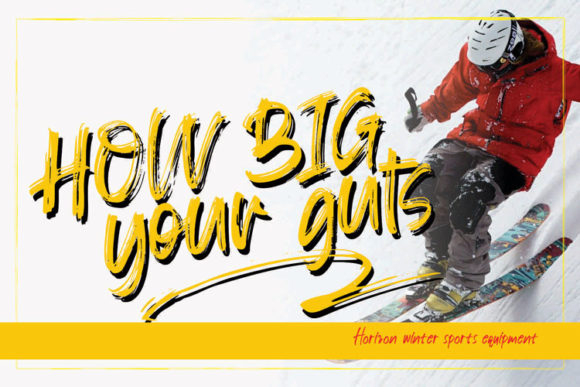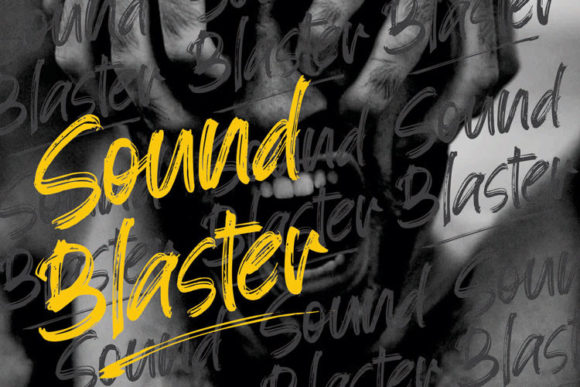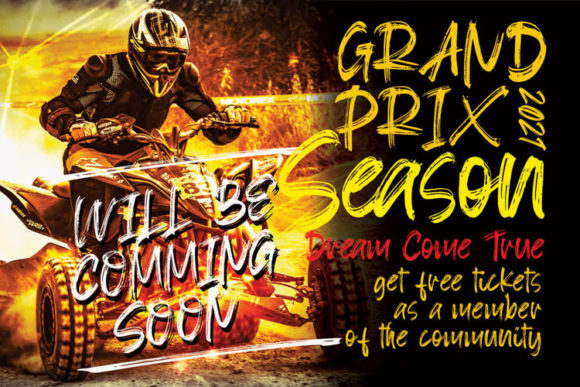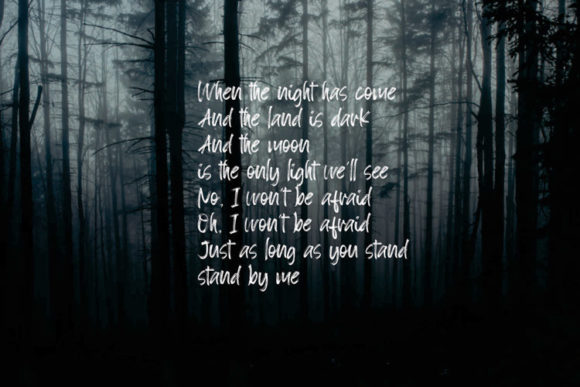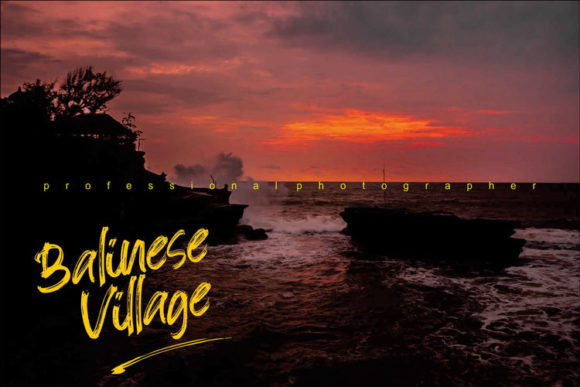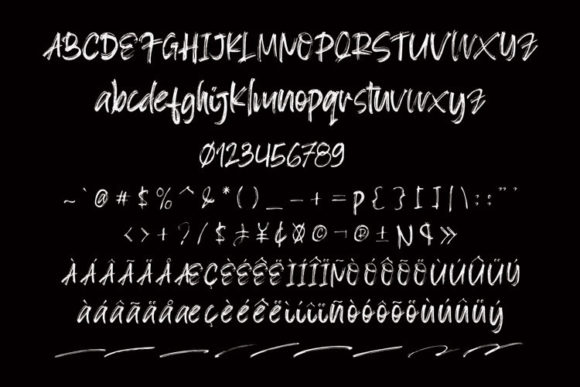
Discover the Elegance of Blacksign Font: A Cursive Brushed Handwritten Masterpiece
In the world of typography, fonts play a crucial role in conveying messages, expressing emotions, and adding personality to designs. For designers, crafters, and anyone looking to elevate their creative projects, the Blacksign Font is a gem worth exploring. This article delves into the characteristics, benefits, and uses of the Blacksign Font, a cursive brushed handwritten font that is sure to become an invaluable asset in your font library.
What is Blacksign Font?
Blacksign Font is a beautifully crafted cursive brushed handwritten font, designed to bring a touch of elegance and sophistication to any project. Its lovely style, characterized by fluid strokes and a natural, hand-painted feel, makes it versatile enough to be used across a wide range of topics and themes. Whether you’re working on a branding project, a wedding invitation, a packaging design, or a digital platform, Blacksign Font has the potential to elevate your creation and make it stand out.
Key Features of Blacksign Font
- Cursive and Fluid Strokes: Blacksign Font boasts beautiful, cursive strokes that give it a dynamic and elegant appearance. The fluidity of the font makes it perfect for creating a sense of movement and grace in your designs.
- Brushed Handwritten Style: The brushed quality of the font lends it a hand-painted, bespoke feel, adding a layer of authenticity and personal touch to your projects.
- Versatility: One of the key advantages of Blacksign Font is its versatility. It can be used for a variety of projects, from formal and professional to casual and creative, making it a valuable addition to any font library.
- Elegance and Sophistication: The overall design of Blacksign Font exudes elegance and sophistication, making it an excellent choice for projects that require a touch of luxury or refinement.
Benefits of Using Blacksign Font
Adding Blacksign Font to your collection comes with numerous benefits, including:
- Enhanced Visual Appeal: The unique style of Blacksign Font can significantly enhance the visual appeal of your designs, making them more engaging and captivating to your audience.
- Emotional Connection: The handwritten, brushed quality of the font can help create an emotional connection with your audience, making your message more relatable and personal.
- Brand Differentiation: For businesses and brands, using a distinctive font like Blacksign can help differentiate your brand identity and make your brand more memorable.
- Time-Saving: Having a versatile font like Blacksign in your library can save you time in searching for the right font for your project, allowing you to focus on other creative aspects.
How to Use Blacksign Font Effectively
To make the most out of Blacksign Font, consider the following tips:
- Pair with Complementary Fonts: For maximum impact, pair Blacksign Font with simpler, sans-serif fonts for body text to create a balanced and harmonious design.
- Adjust Size and Color: Experiment with different sizes and colors to emphasize certain parts of your text and create visual hierarchy.
- Use for Headings and Titles: Blacksign Font is particularly effective for headings and titles, where its elegance and cursive flow can be fully appreciated.
- Consider the Context: While Blacksign Font is versatile, ensure it aligns with the tone and theme of your project. Its elegance makes it suitable for a wide range of contexts, from weddings to luxury brands.
| Font Name | Blacksign Font |
| Author | creativework69 |
Blacksign Font is a stunning cursive brushed handwritten font that can add a touch of elegance and sophistication to any design project. Its versatility, combined with its beautiful style, makes it an incredible asset for designers and crafters looking to elevate their creations. Whether you’re aiming to create a lasting impression, convey luxury, or simply add a personal touch, Blacksign Font is a valuable addition to your font library. Explore its potential and discover how it can transform your designs.